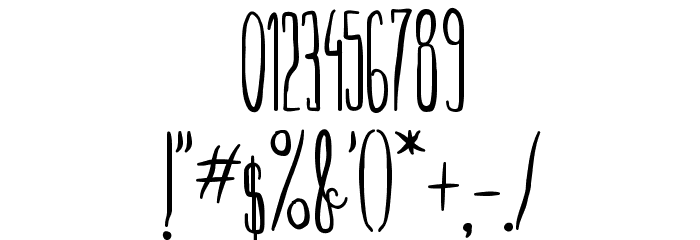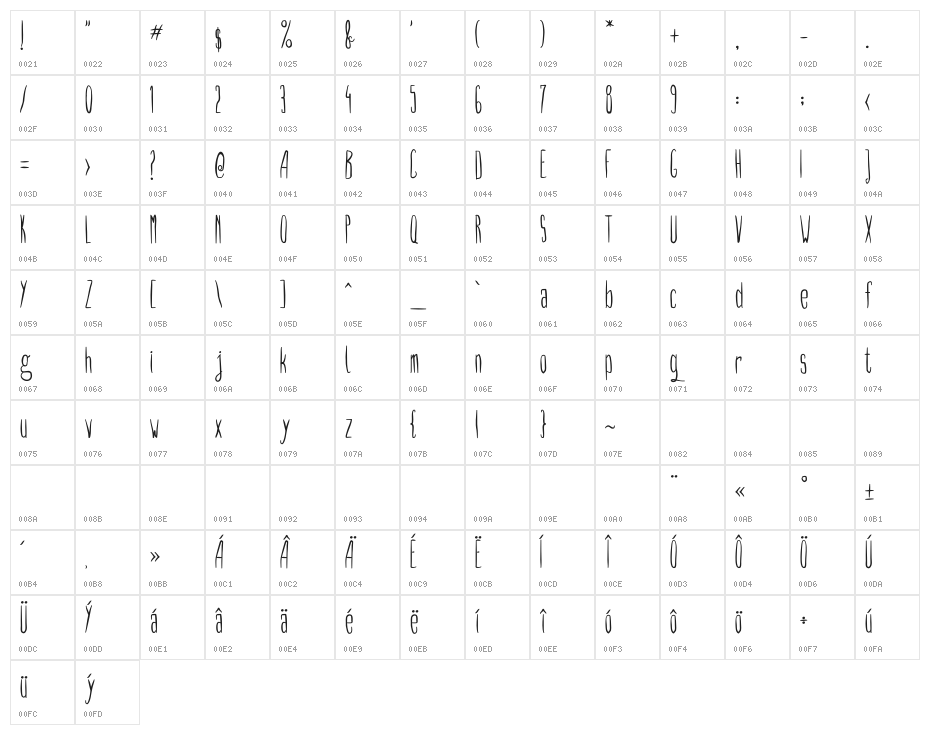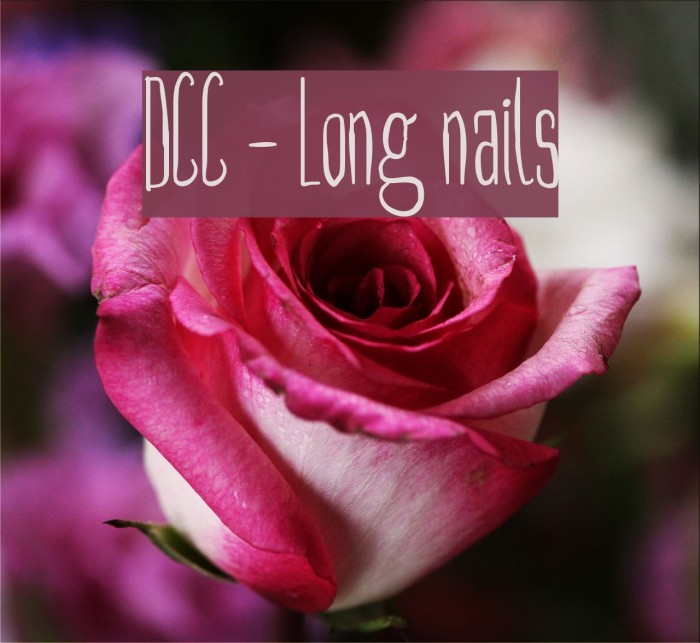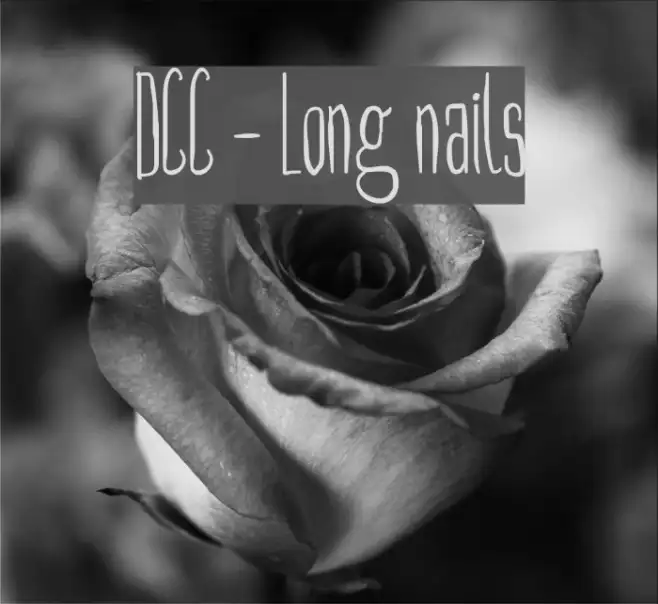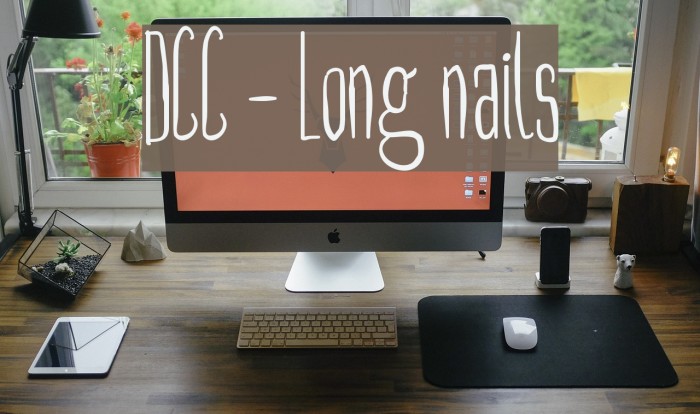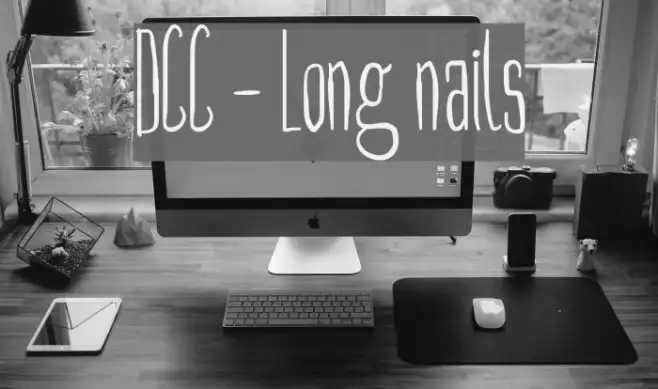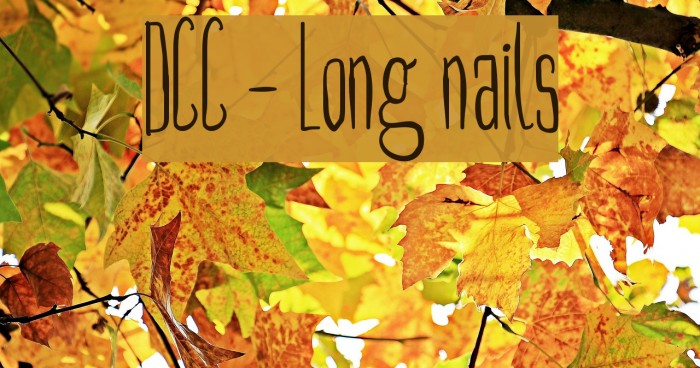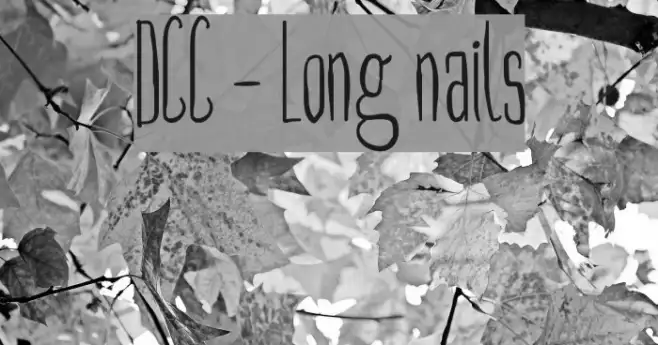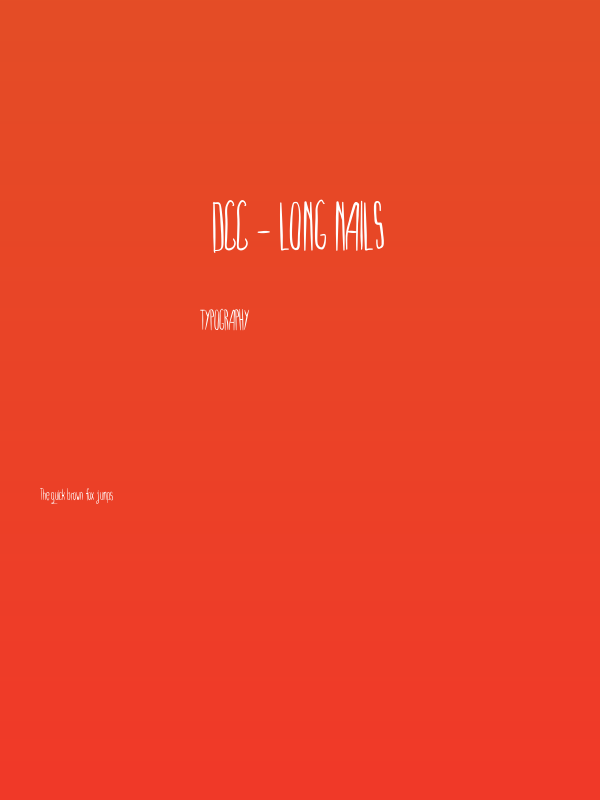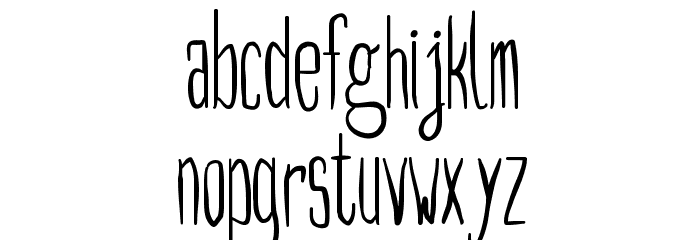
DCC - Long nails Font
DCC - Long nails Description
This font features an elongated and narrow design, giving it a distinctive and artistic appearance. The characters are tall and slender, with a playful yet elegant style. The uppercase and lowercase letters maintain a consistent height, contributing to a cohesive look. The numbers and special characters follow the same elongated form, ensuring uniformity across the typeface. The strokes are smooth and slightly irregular, adding a hand-drawn feel that enhances its unique charm. This font is ideal for creative projects where a touch of whimsy and sophistication is desired.
| Use Case | Headlines, Logos, Artistic projects |
| Proposed Projects | Ideal for posters, invitations, branding, and artistic projects requiring a unique and elegant touch. |